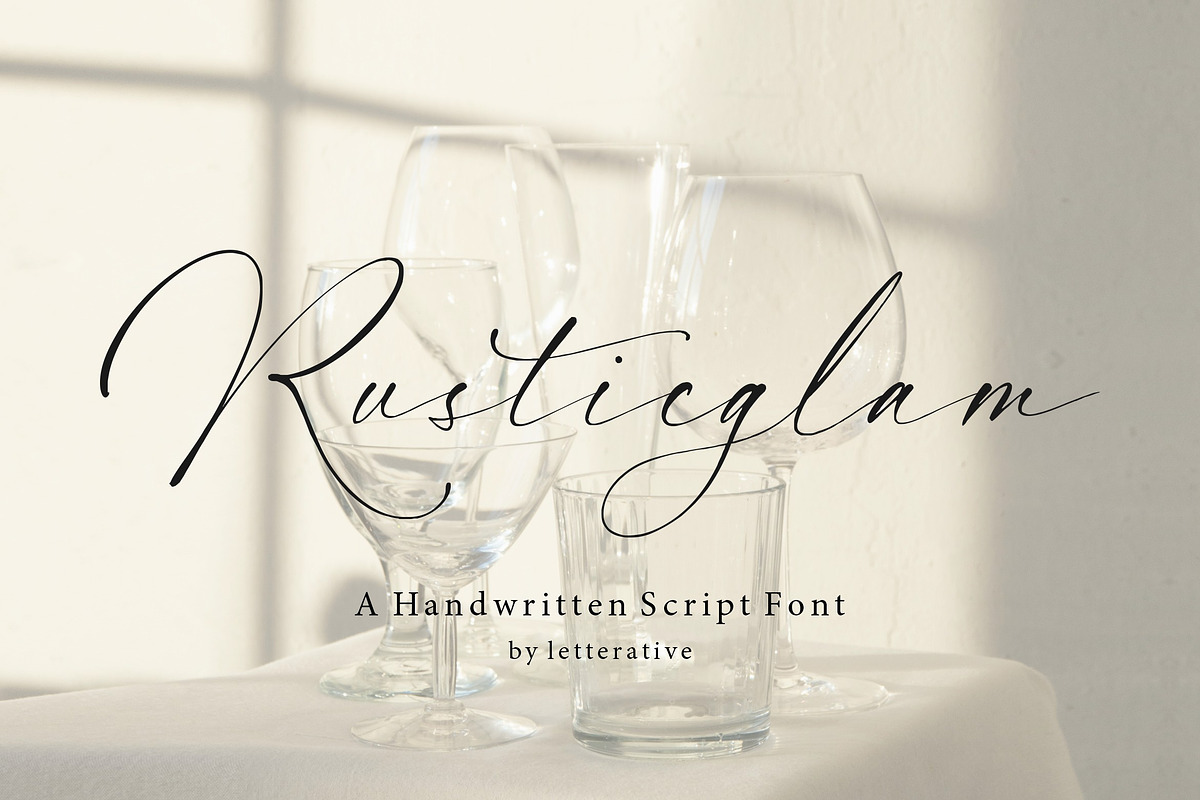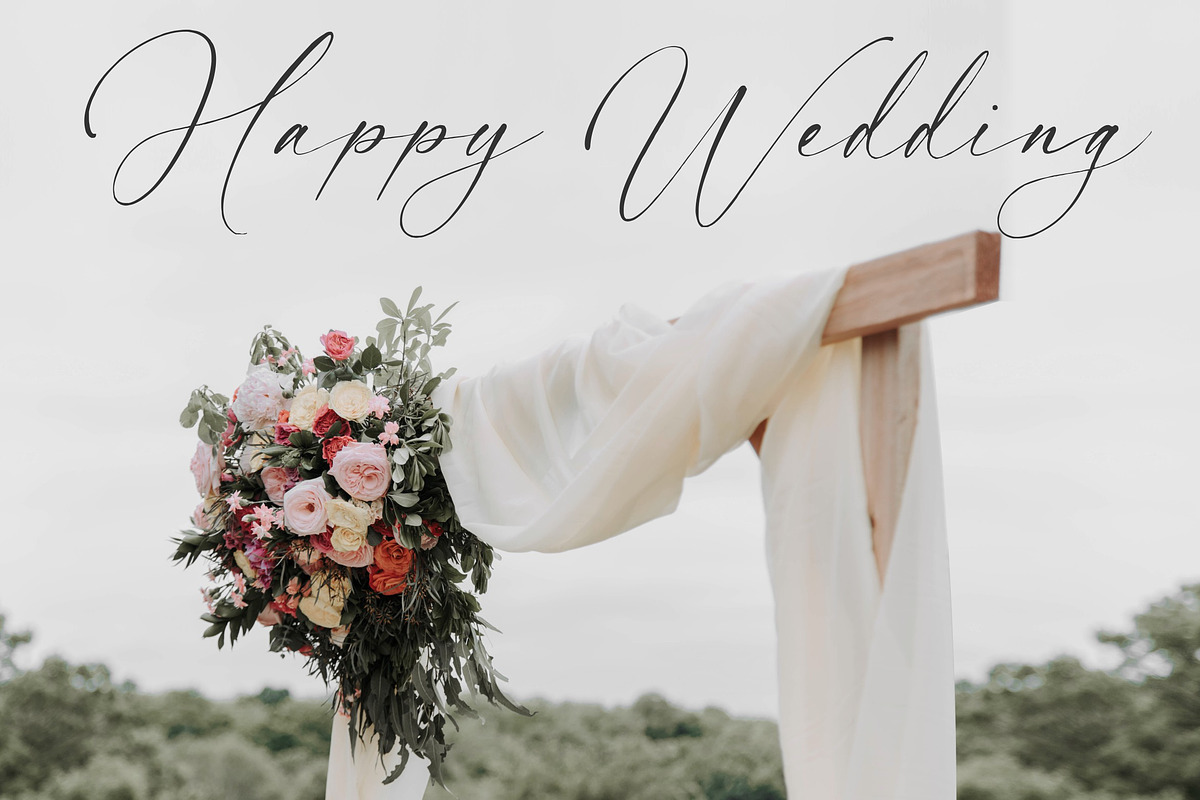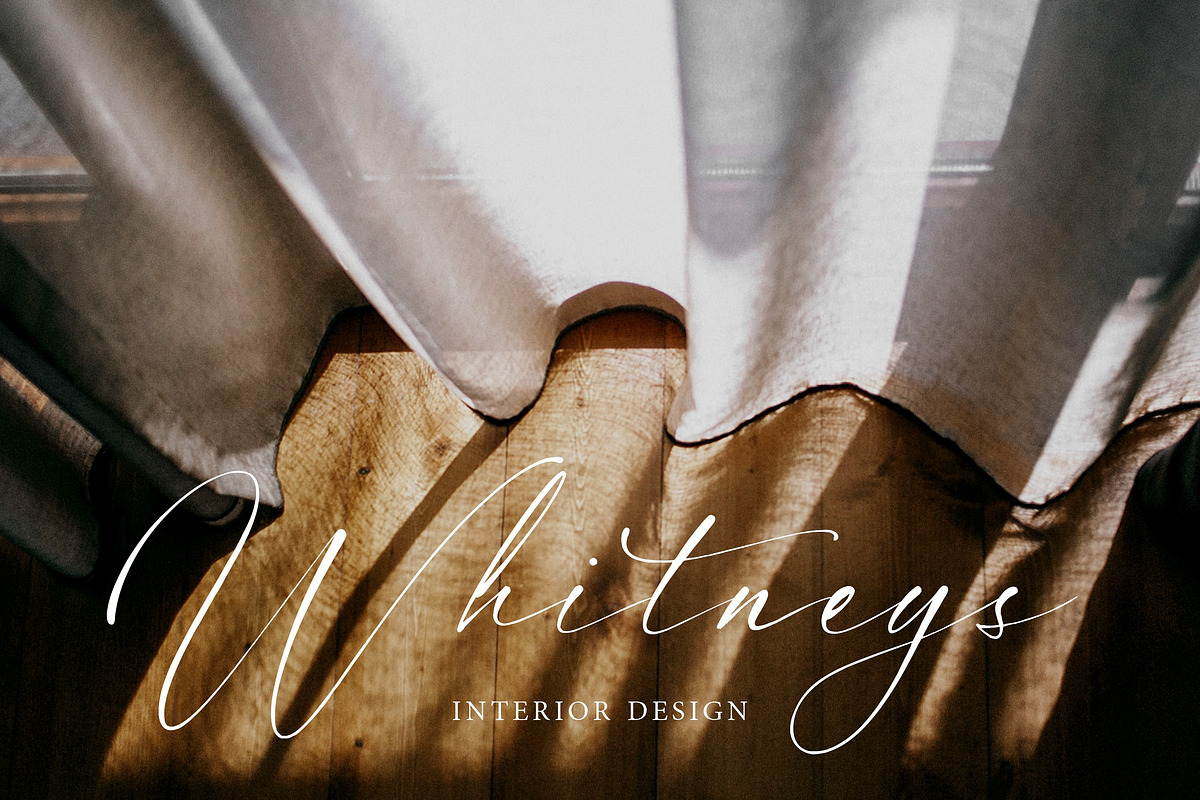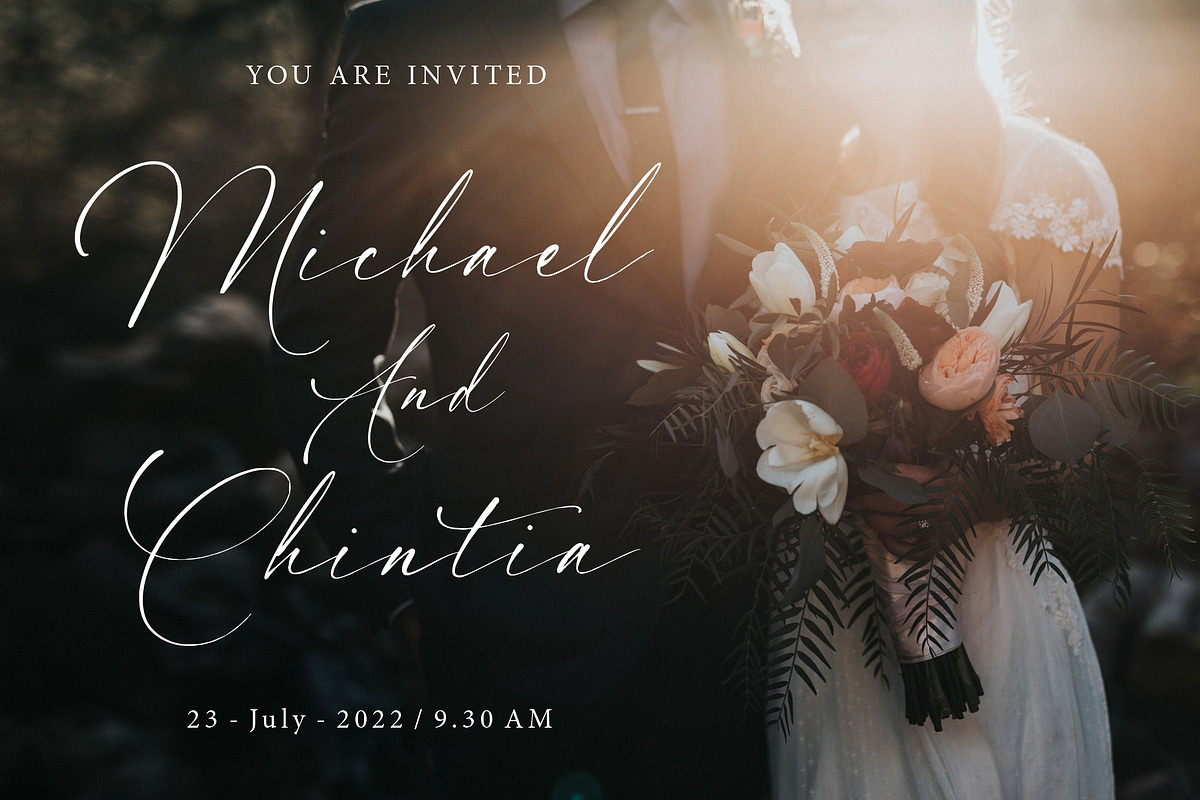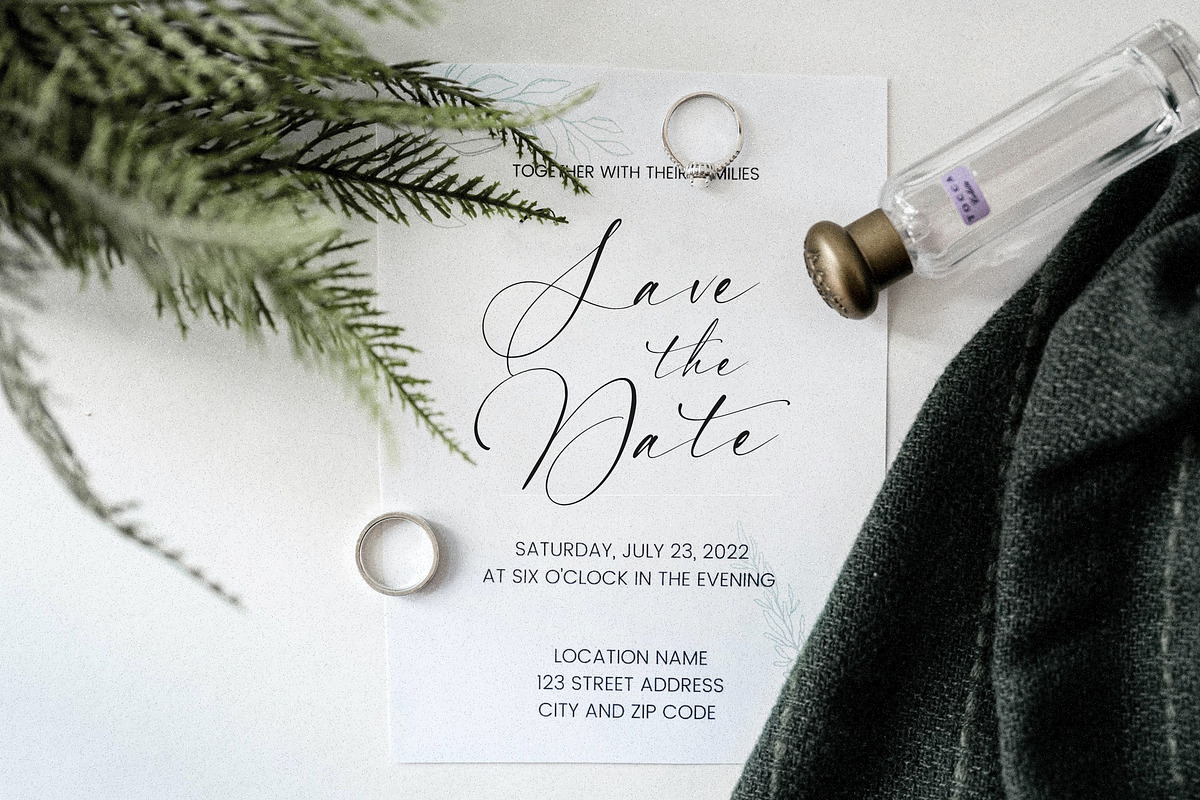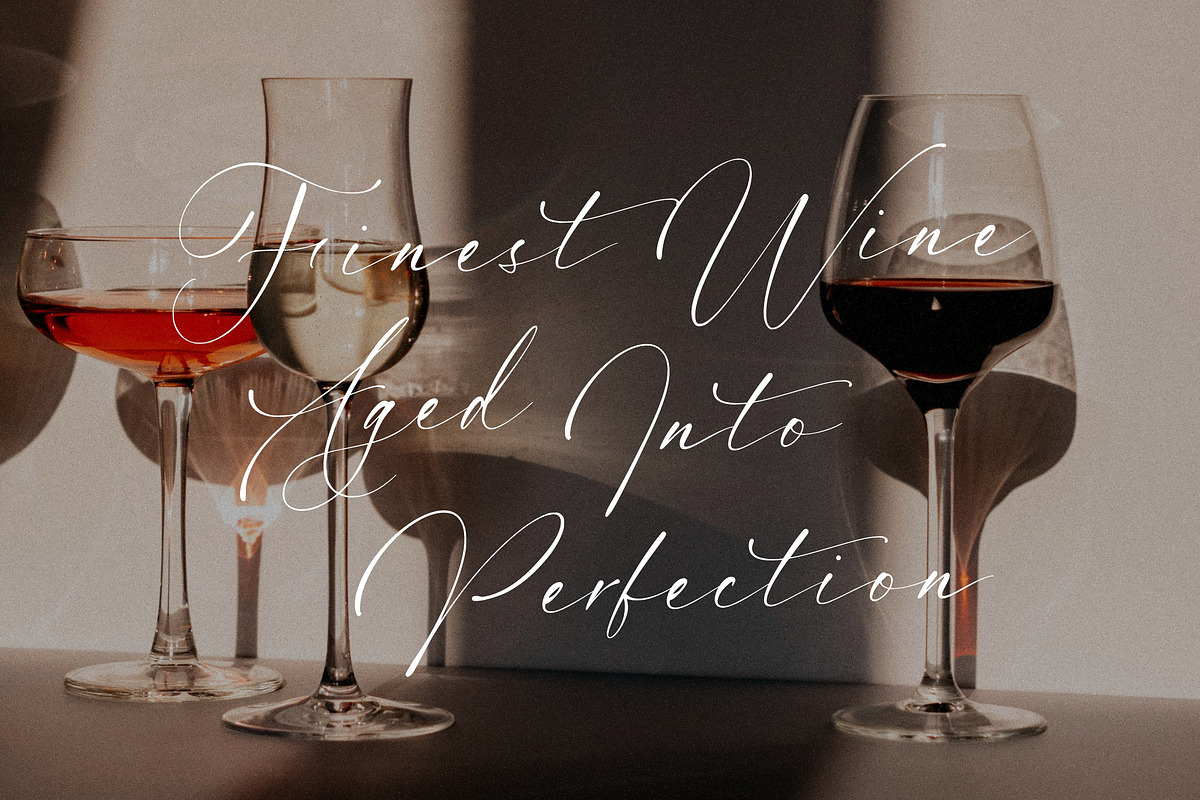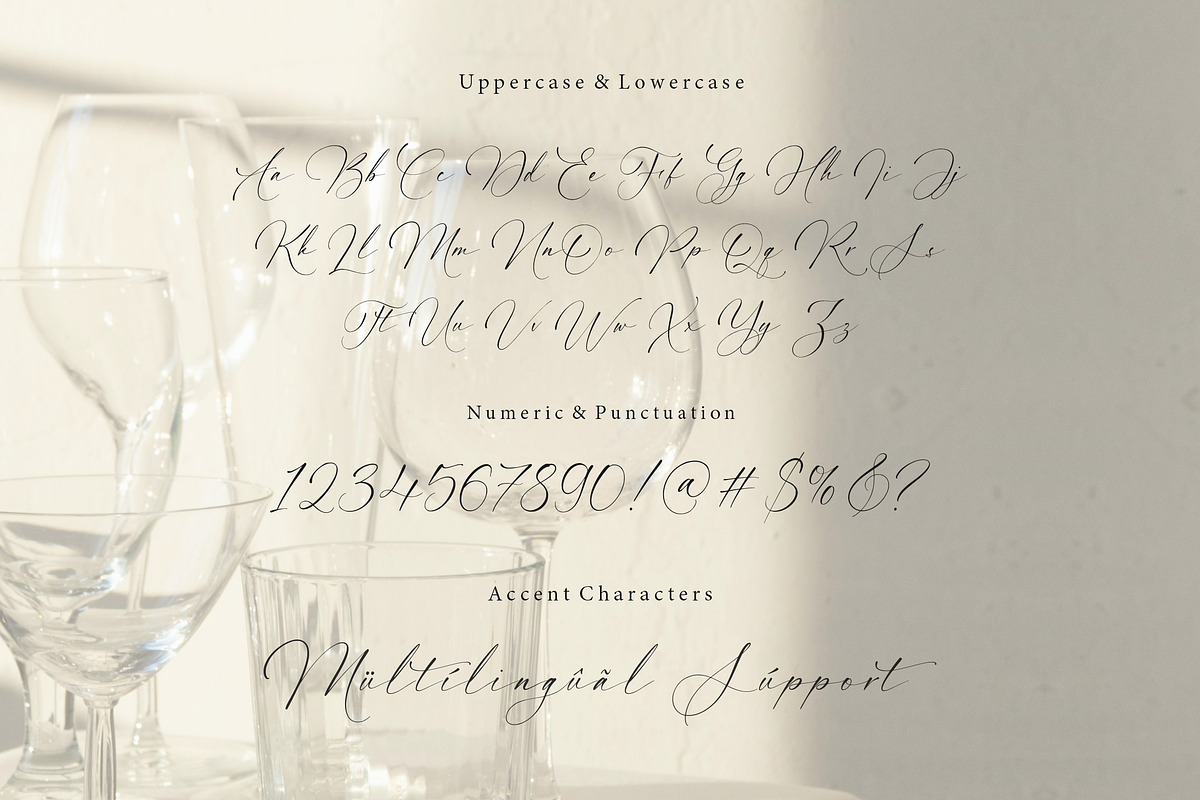
Rusticglam - Handwritten Script Font
Introducing by Letterative Studio : Rusticglam Font
Rusticglam is a Handwritten Script Font
Rusticglam is a unique and elegant handwritten font. It looks beautiful on a variety of designs requiring a personalized style, such as wedding invitations, thank you cards, greeting cards, logos, and so on.